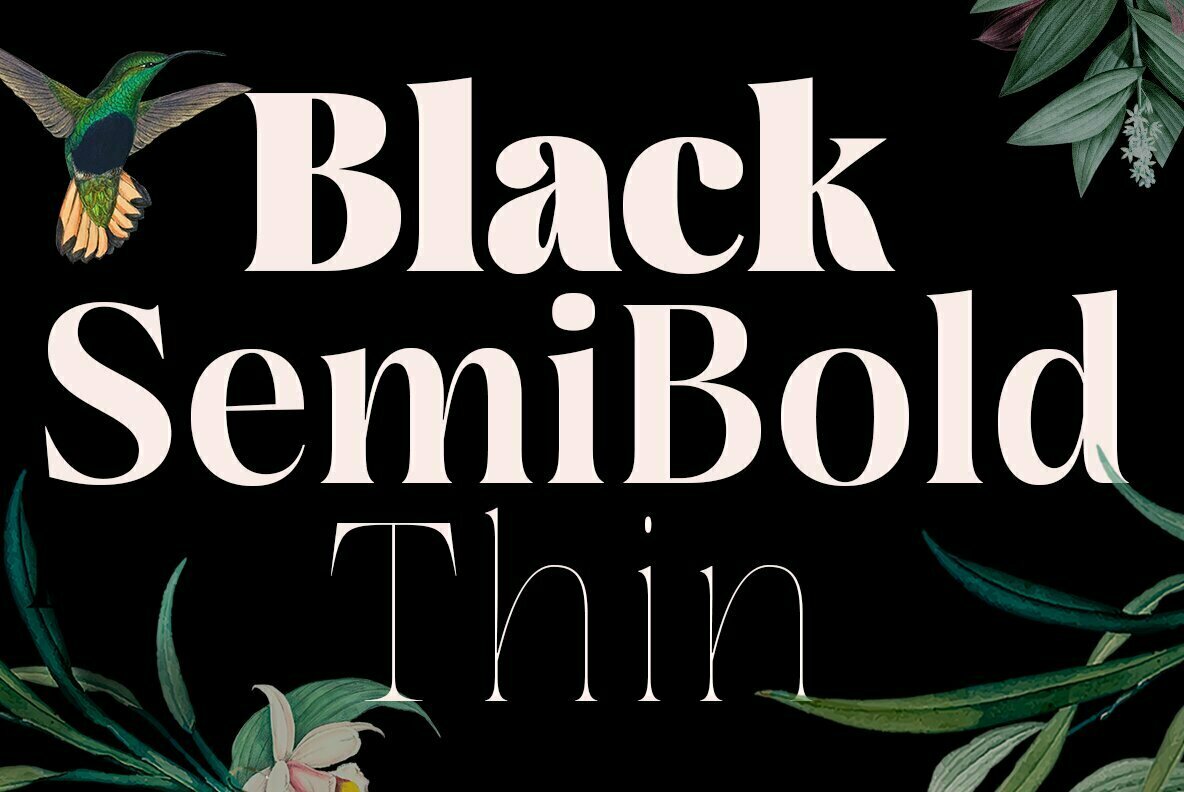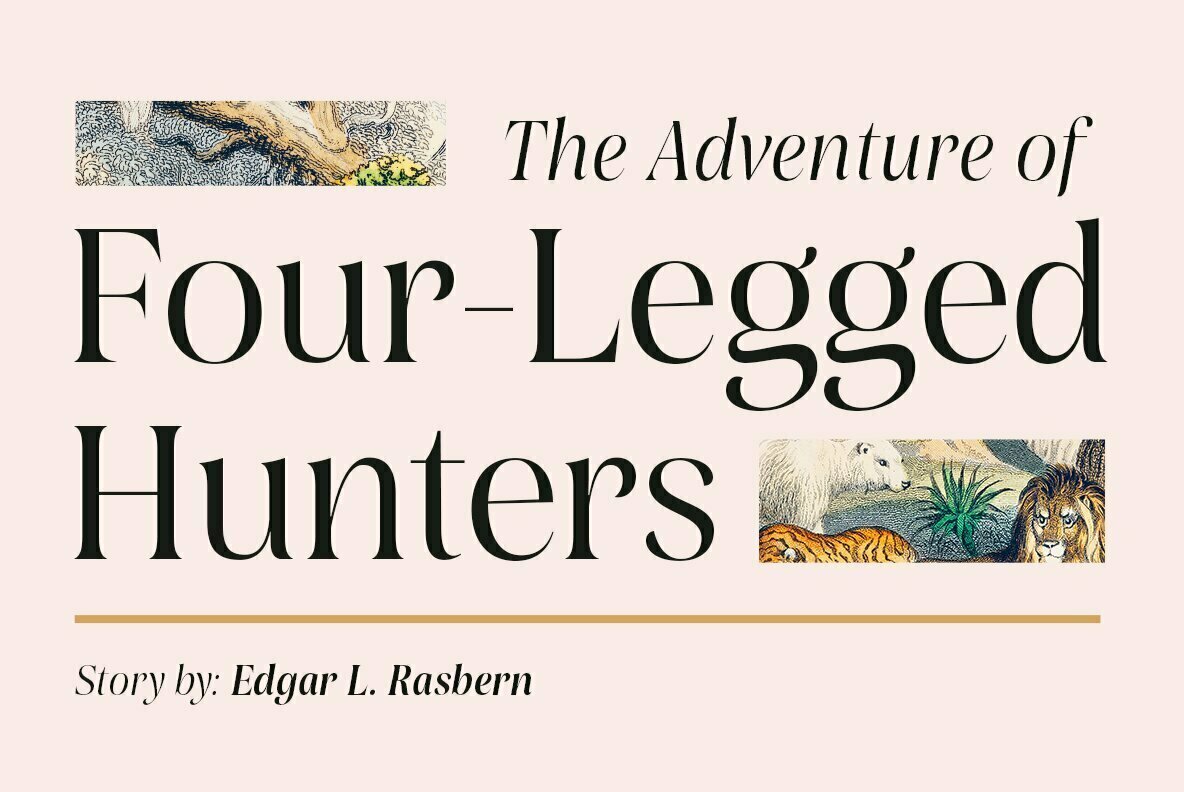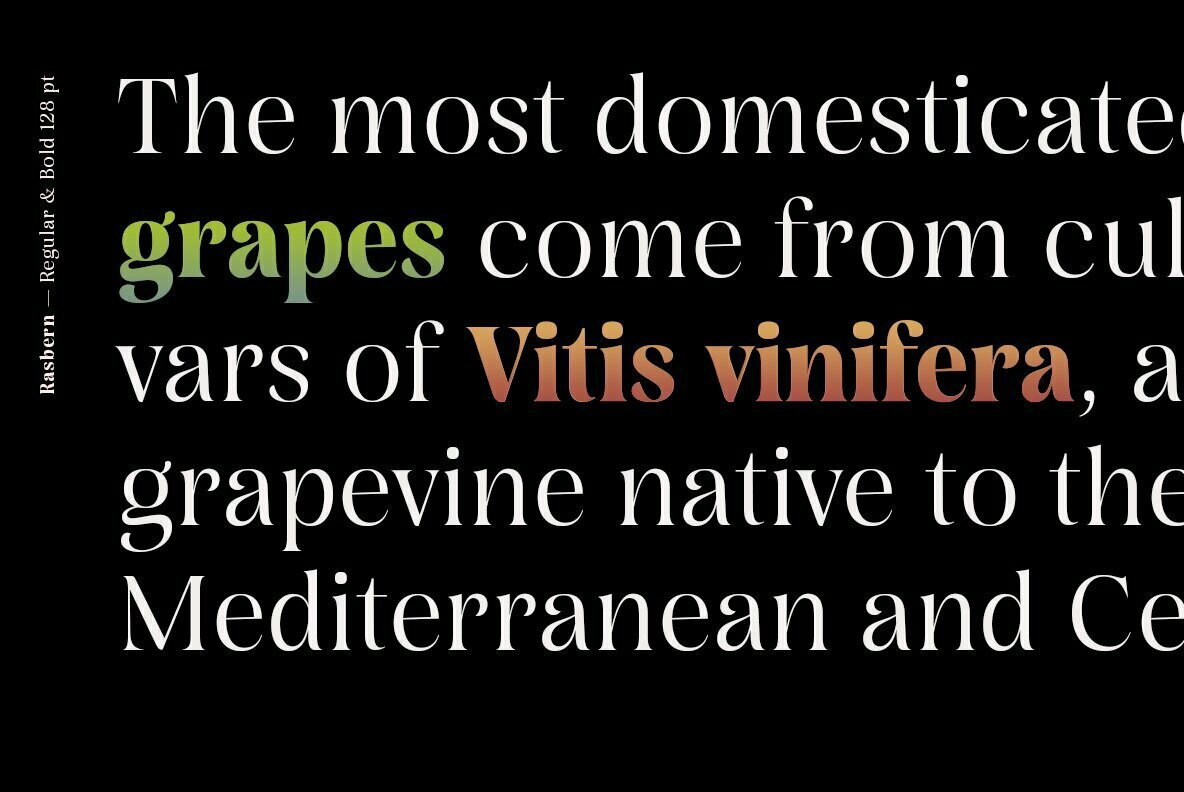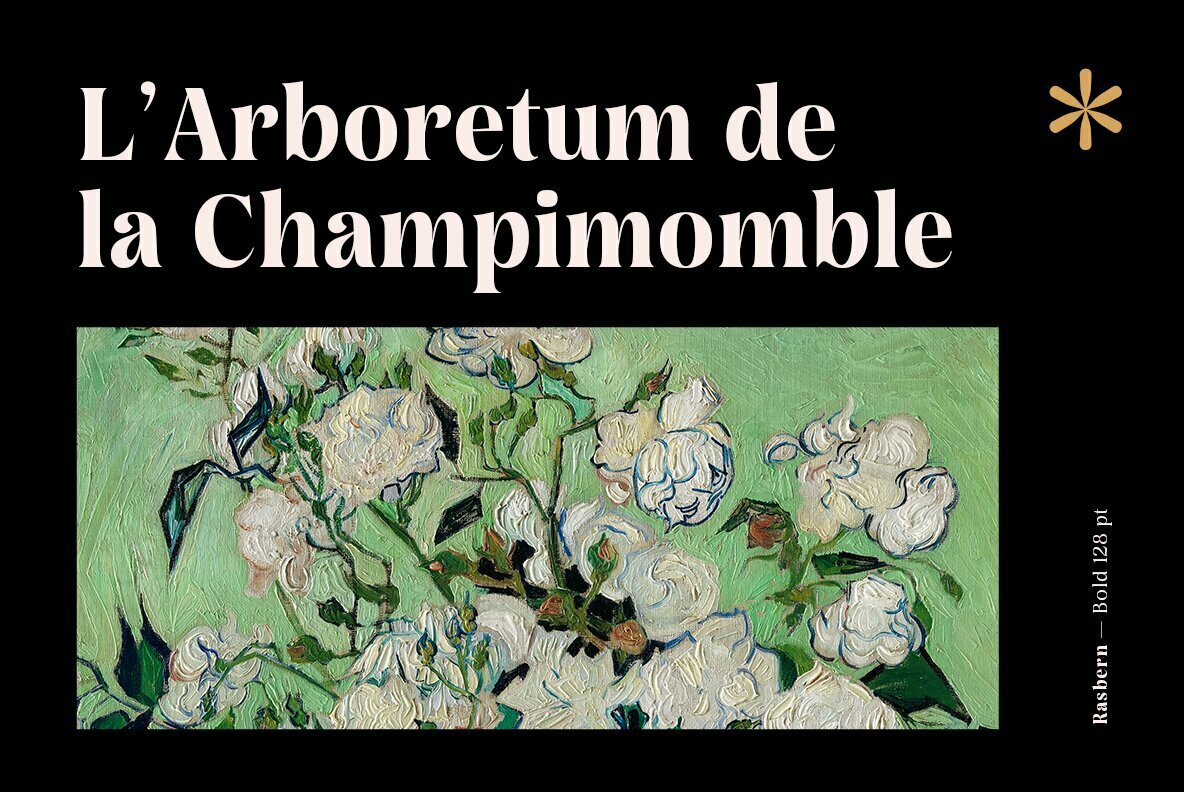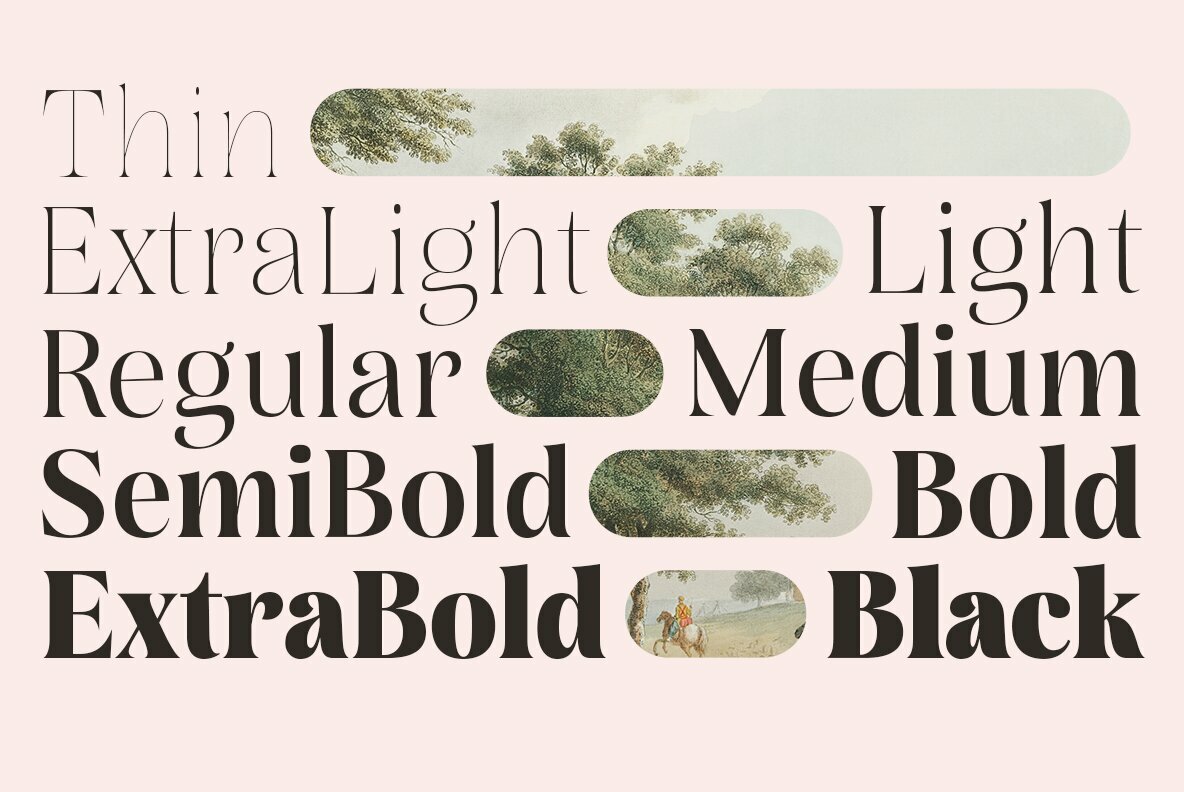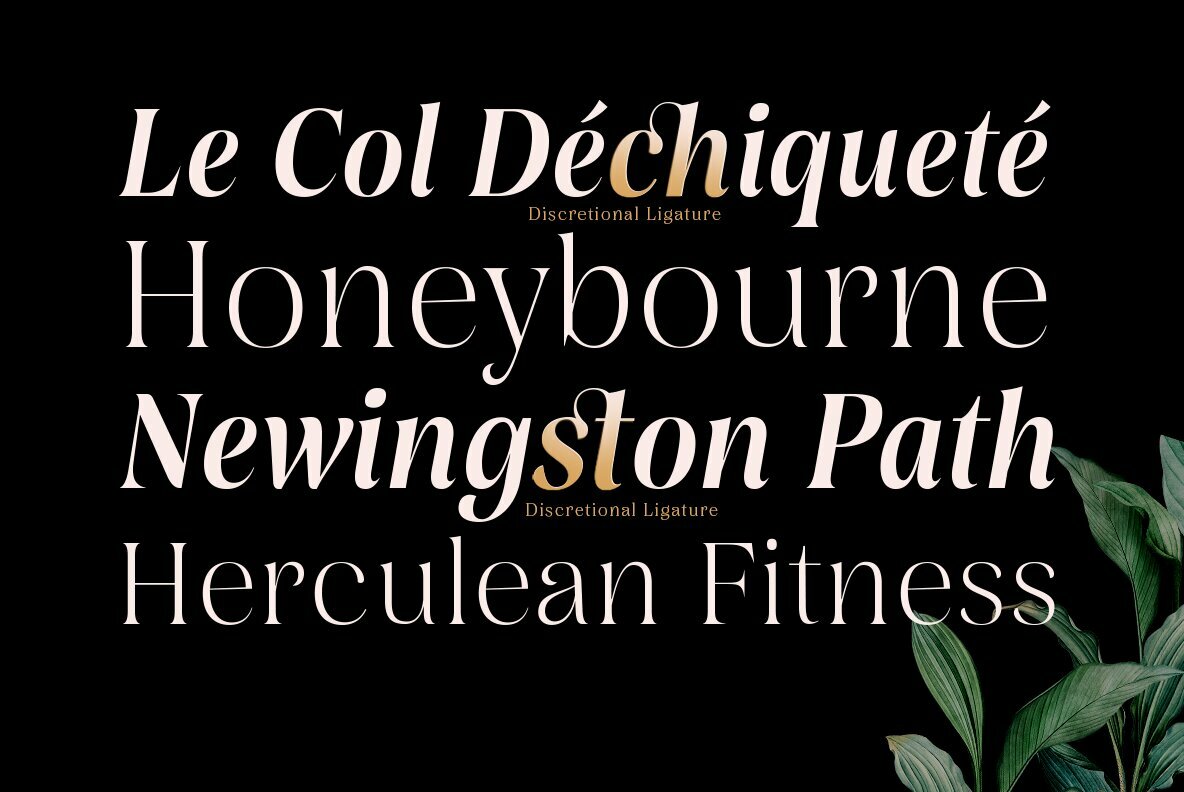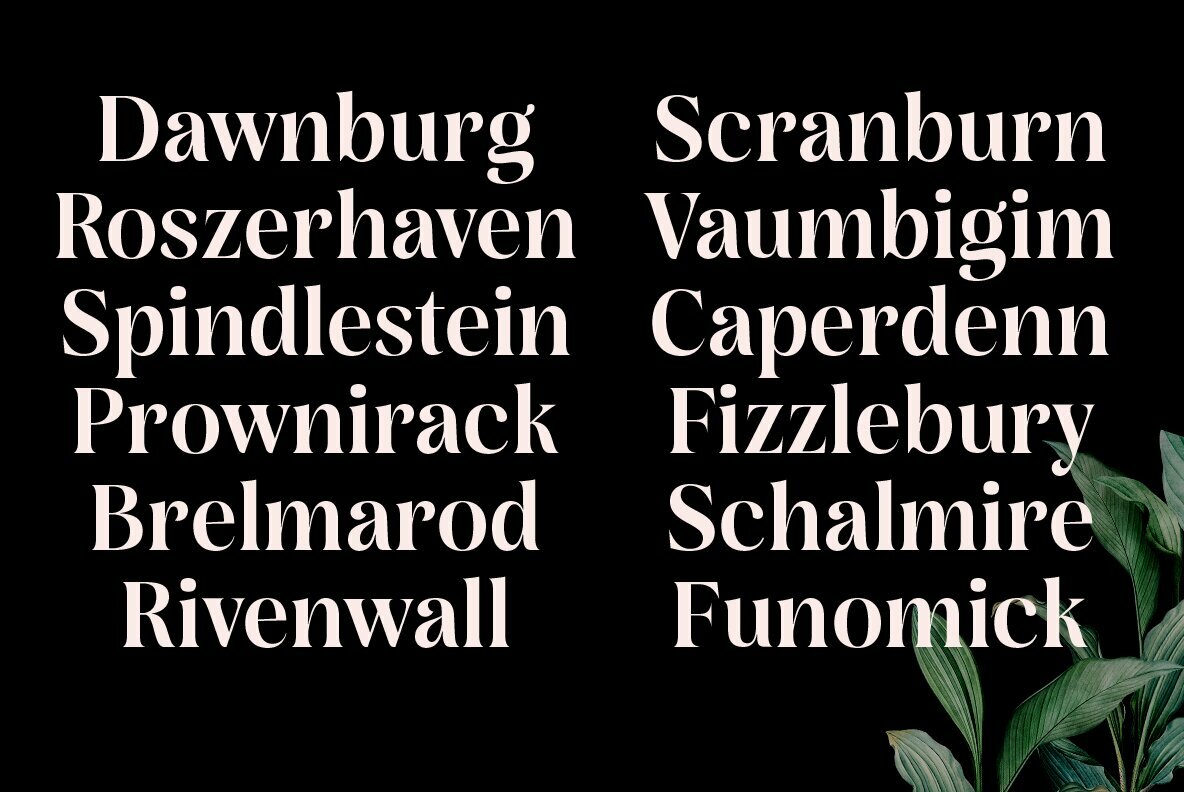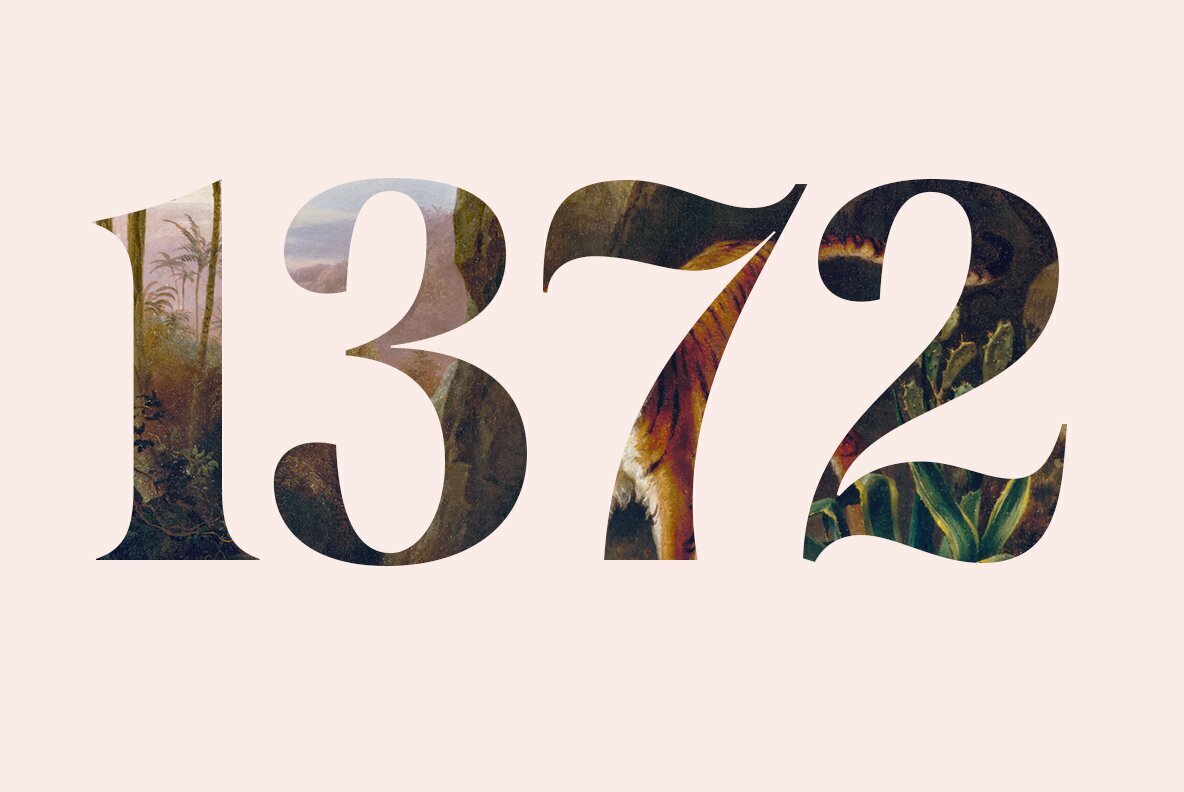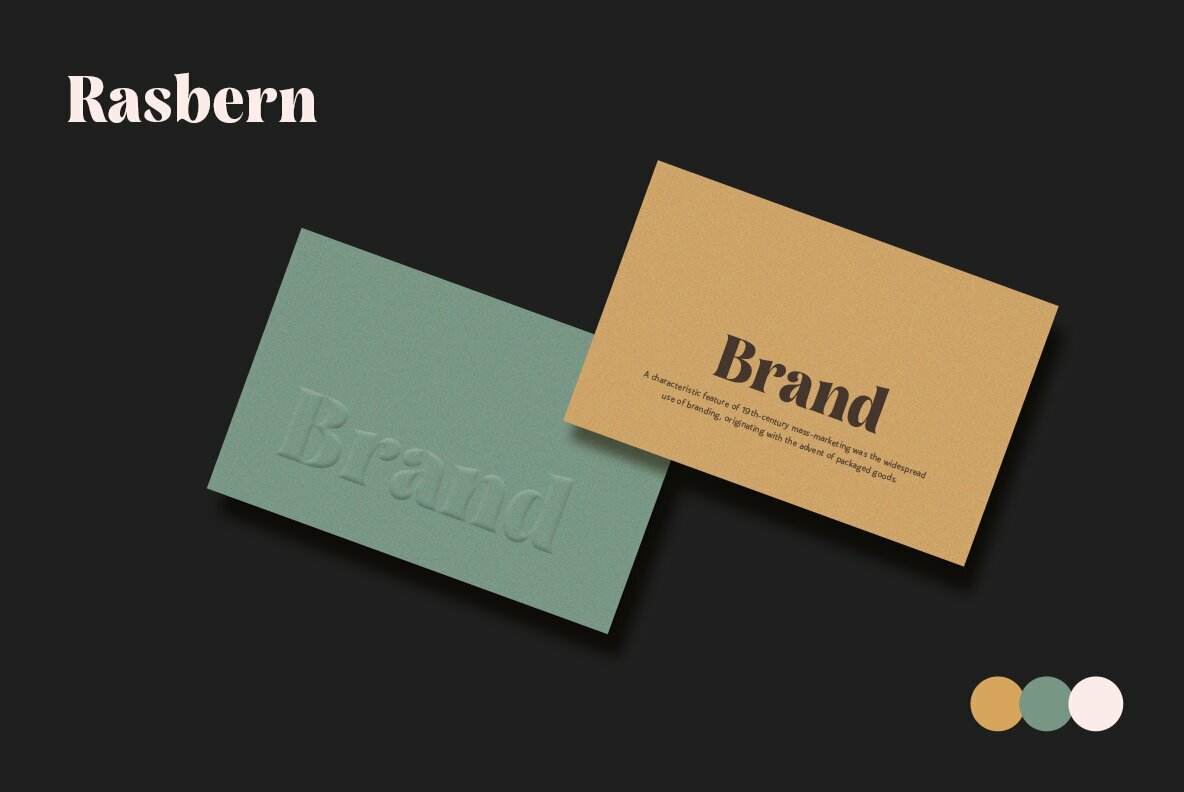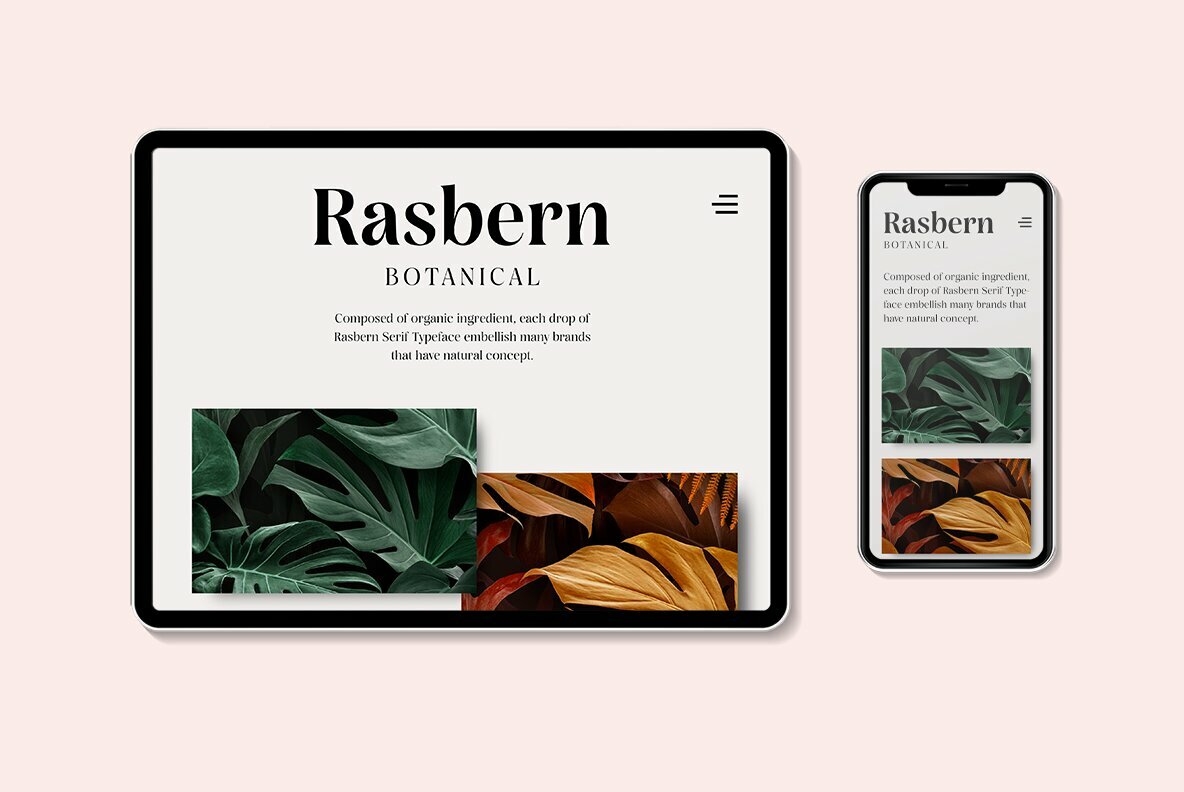
Rasbern Font
Rasbern is a display serif typeface with high contrast and refreshing looks.
Ranging from thin to black with italics, Rasbern offers many possibilities to be applied in many graphic or editorial projects. The lighter weights are suitable for short paragraph, and the heavier weights are perfect for headlines, perfectly suitable for display purpose such as branding, book covers, and web heading.
Rasbern has extended latin character set that supports 200+ latin-based languages.